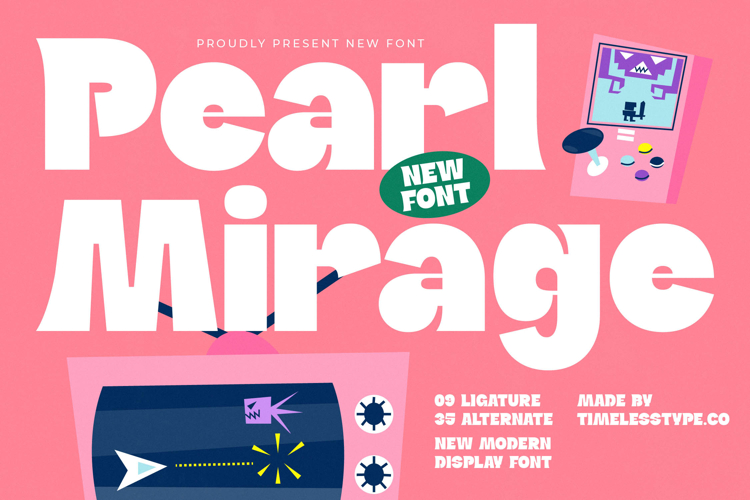
Pearl Mirage - Modern Display Font
Elevate your designs with unmistakable flair and contemporary appeal. Introducing Pearl Mirage - Modern Display Font, a typeface crafted to command attention with its bold yet approachable aesthetic. This distinctive font embodies a perfect blend of playful curves and sturdy forms, making it an ideal choice for projects seeking a truly memorable visual identity.
Discover the nuanced artistry behind every character, where elegance meets expressive design. Pearl Mirage - Modern Display Font features high-contrast styling that lends it gravitas and captivating charm. Enhanced with unique ligatures and extensive alternates, this font offers unparalleled creative freedom, allowing designers to craft bespoke headlines and logotypes with significant visual impact.
Unleash creative possibilities across all platforms, ensuring your brand resonates globally. Pearl Mirage - Modern Display Font is perfectly suited for luxury branding, eye-catching packaging design, compelling editorial layouts, and bold headlines. With its extensive multilingual support, Pearl Mirage - Modern Display Font adapts seamlessly across global markets, making it incredibly versatile for international projects and ensuring broad accessibility.